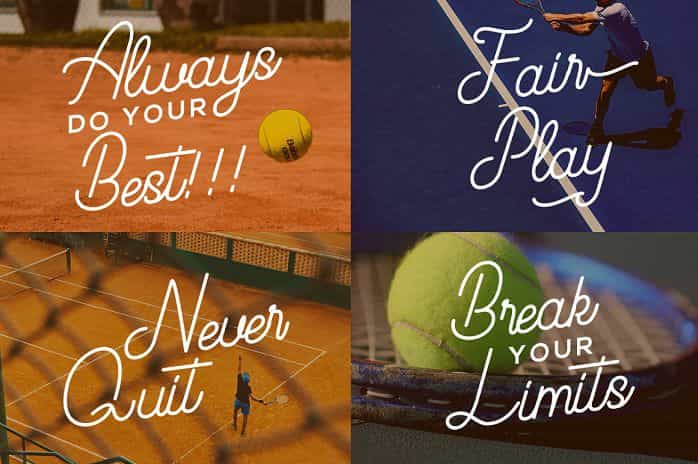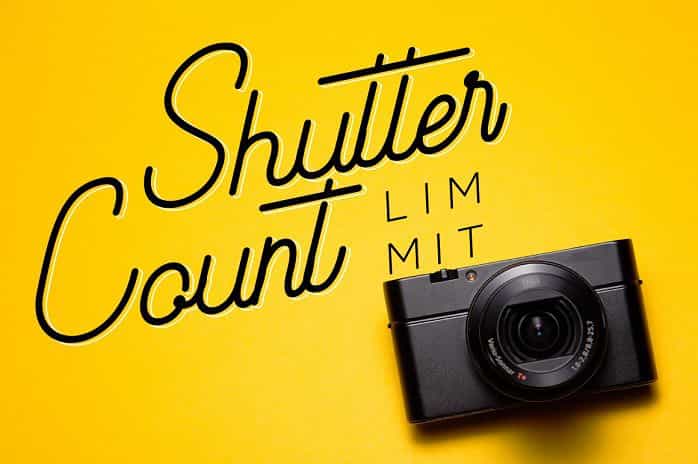
The brand new script font Beauty One. Beauty One Font is a font which was designed and shared by Attype Studio. The Beauty One, a stylish font in the monoline script style. This attractive handwriting font is your personal note to the latest art project, fresh and curvy look.